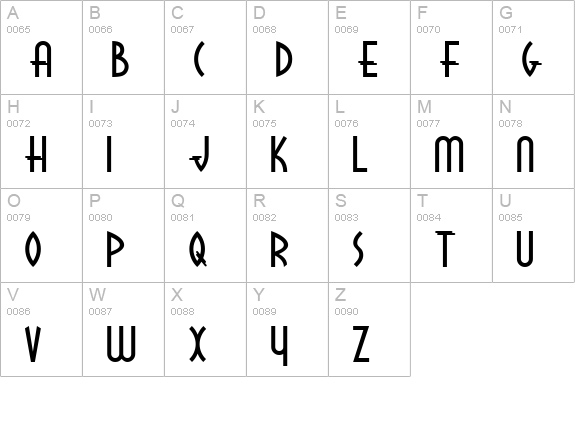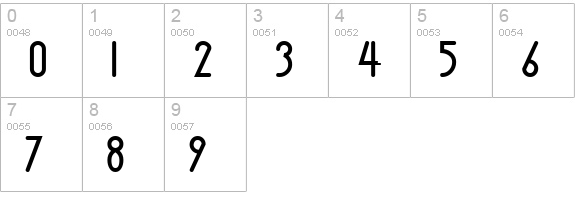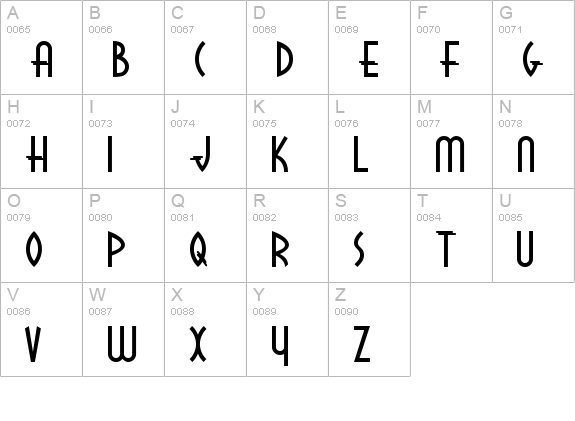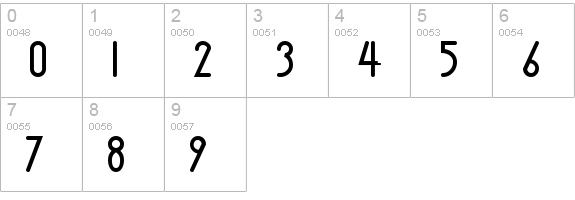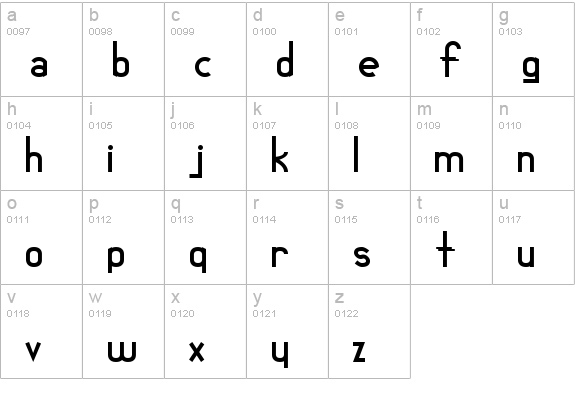
LauraMc Crary Font Details
Introducing the exquisite LauraMc Crary font, a captivating typeface that effortlessly combines elegance with a touch of modernity. This stunning font presents itself with an alluring balance of delicate curves and refined lines, creating a truly mesmerizing visual experience. LauraMc Crary font is a testament to the artistry of typography, showcasing its versatility in various design projects. Its meticulously crafted letterforms exude sophistication and charm, making it the perfect choice for wedding invitations, branding materials, book covers, and much more. What sets LauraMc Crary font apart is not only its aesthetic appeal but also its accessibility. This remarkable font is freely available to download at FontsMarket.com, enabling designers and enthusiasts alike to unleash their creativity without any limitations. By offering this font for free, its creators have made it effortlessly accessible to anyone who wishes to add a touch of elegance to their designs. Whether you're a professional designer seeking a font that will elevate your work to new heights or an aspiring artist looking to add a touch of sophistication to your personal projects, LauraMc Crary font is the ideal choice. Its seamless integration of classic and contemporary design elements ensures that it will remain timeless, making it a valuable addition to any creative endeavor. With LauraMc Crary font, you have the power to transform your designs into works of art that leave a lasting impression. So why wait? Download this exceptional font today from FontsMarket.com and unlock a world of endless possibilities.